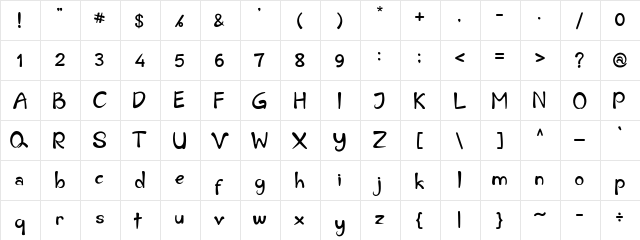
Velissa Regular
Design Context for Velissa Typeface
Velissa takes a measured approach to typography — its balanced proportions and neutral character make it a reliable workhorse for both digital and print work.